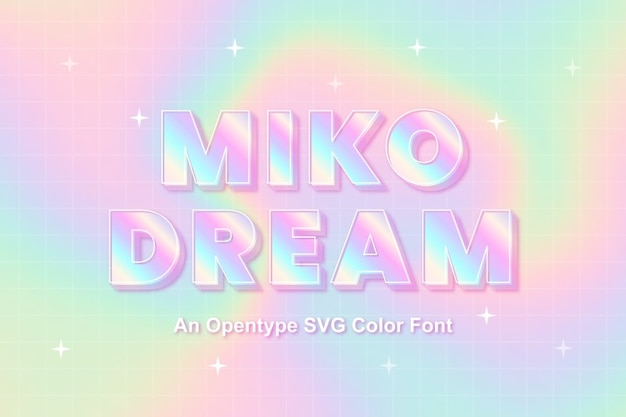
Miko Dream is a font that marries modern design with decorative flair, creating a whimsical, almost fantastical appeal. Its sleek, glass-like characters are nothing short of enchanting, adding a contemporary yet dreamy touch to your projects. This font embodies the essence of cute and chic, making it perfect for any design that needs a dash of contemporary fantasy. Miko Dream is like a window into a world of creativity, where the lines between modernity and imagination blur, resulting in a captivating typeface that adds charm and wonder to your text.